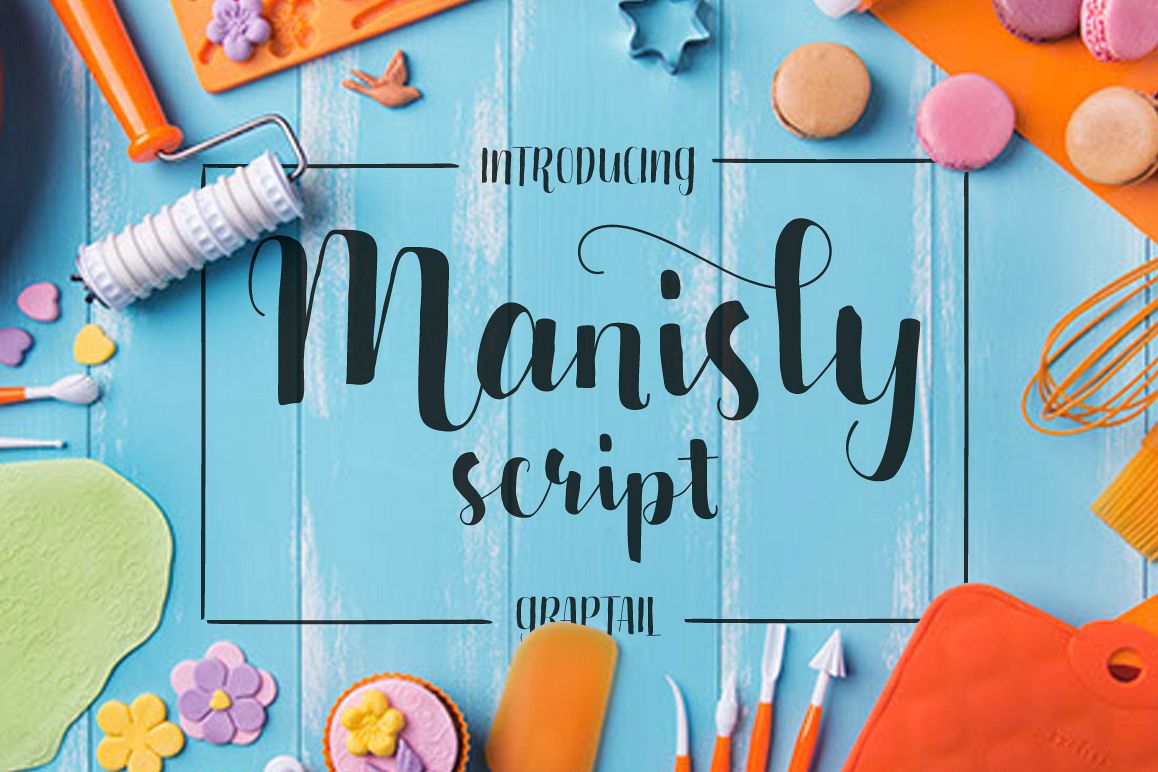
Manisly Script
Manisly is a beautiful hand painted script that comes with a set of extras. All letters have been carefully painted giving your words a wonderful flow. Manisly can be used for fashion, apparel, stationery, magazines, film, books and marketing.
After careful evaluation of the connections between characters, intelligent standards have been established for use of the OpenType feature, that used together with the ‘stylistic alternates, stylistic sets, and swash’ feature, offers a gentle and friendly pace. It can be accessed by using OpenType savvy program such as Adobe Illustrator and Adobe InDesign.